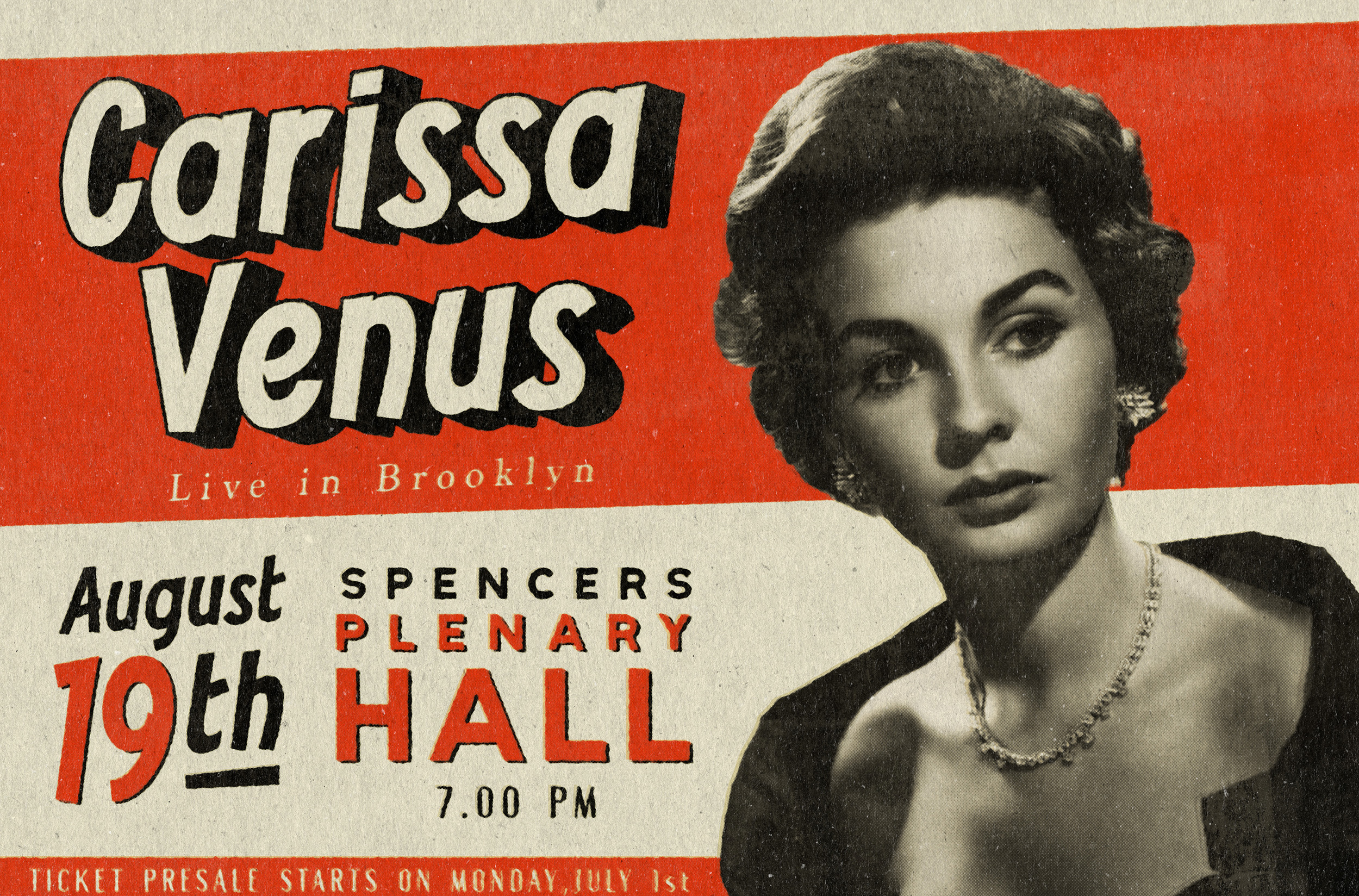
Kehlin - Vintage Casual Font
Please welcome, KEHLIN!, a time machine font for you to get back to those magnificent era for the sake of old retro and vintage stuff. Perfectly fit for your headline content, logo, branding, posters, anytime - anything, oldsport :)